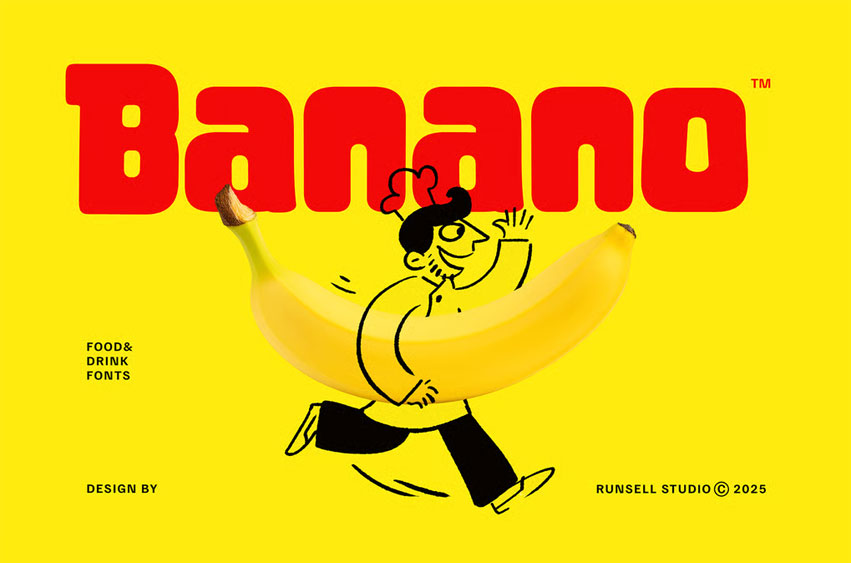
Banano Font is a bold and juicy display font that radiates fun, flavor, and freshness. With its thick, rounded shapes and playful curves, Banano brings cheerful energy to food, drink, and restaurant branding. Perfect for logos, menus, coffee packaging, or candy and burger designs, it captures the joyful vibe of a sunny café or tropical kitchen. Each letter feels ripe with personality — made to stand out in every creative brand identity.
From bakery boxes to pizza menus, ice cream shops, and chocolate labels, Banano serves up a delicious dose of design confidence. It’s ideal for designers who want to combine boldness with warmth, giving every project a sense of fun and friendliness. Whether you’re cooking up a fresh menu or crafting sweet branding, Banano adds the perfect bite of charm to your visual recipe.
Cooked with Creativity, Served with Style.